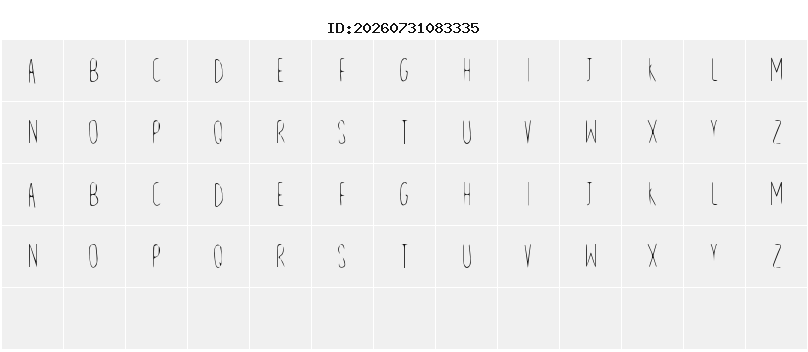
• Font Name: Line and Sand
About Line and Sand.ttf
Line and Sand.ttf is a modern, elegant sans-serif font designed for ultimate readability and visual harmony. Perfect for branding, headlines, web design, and print materials.